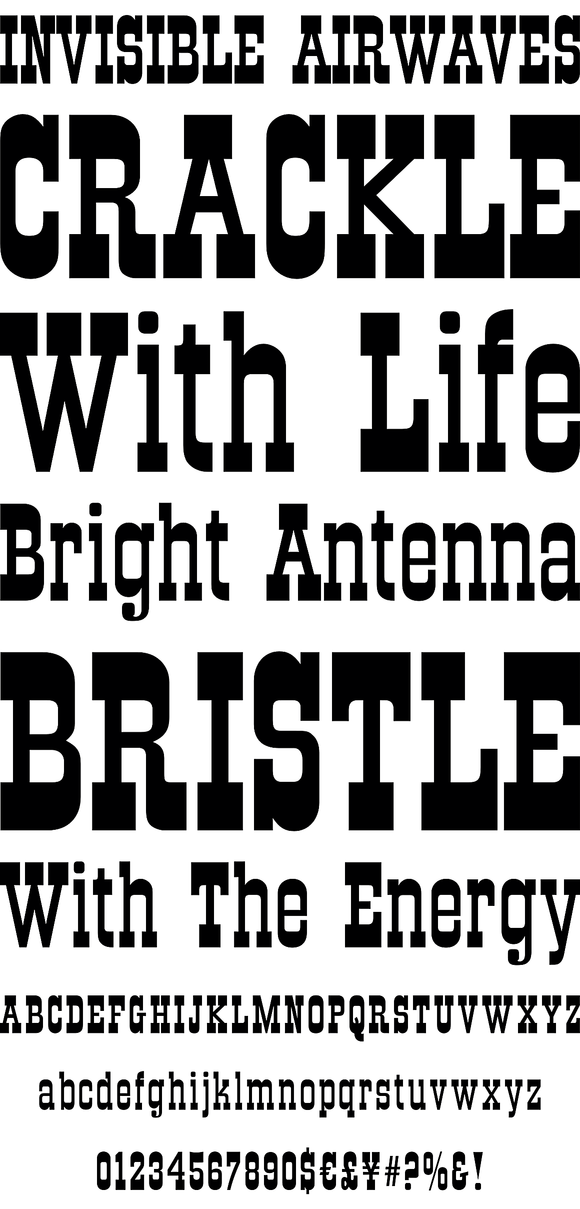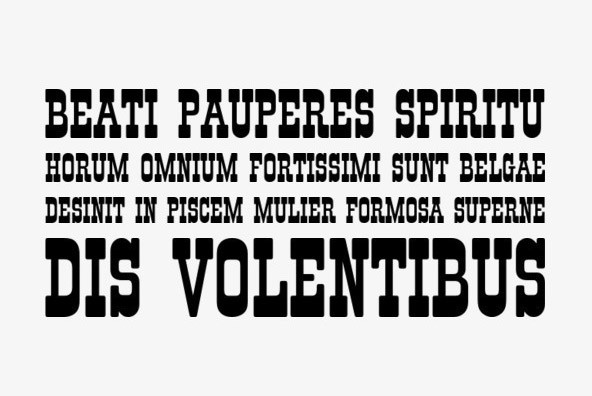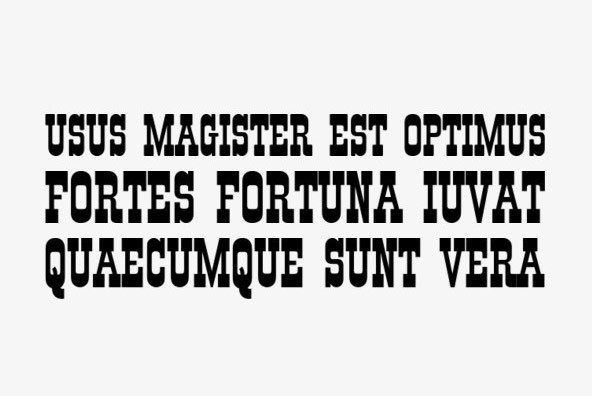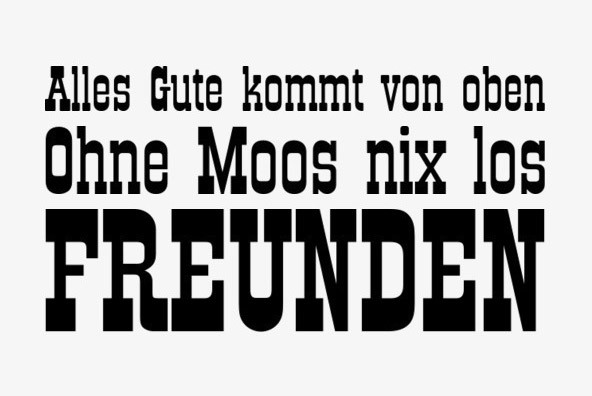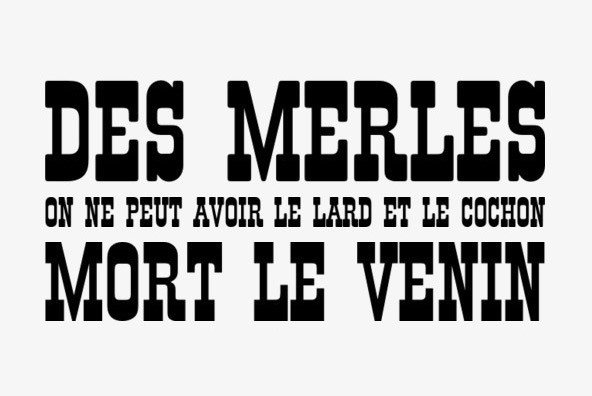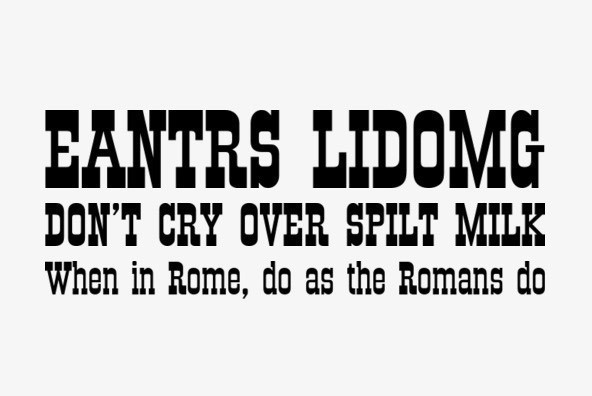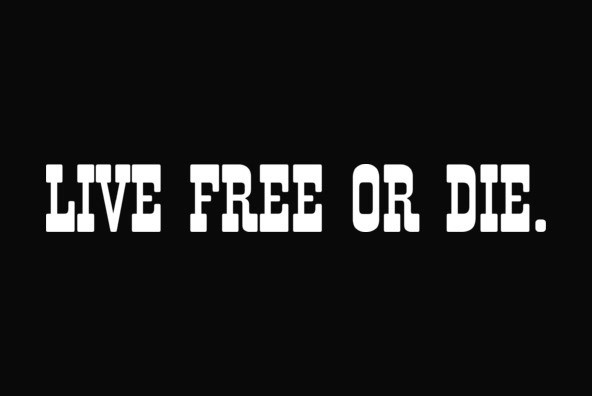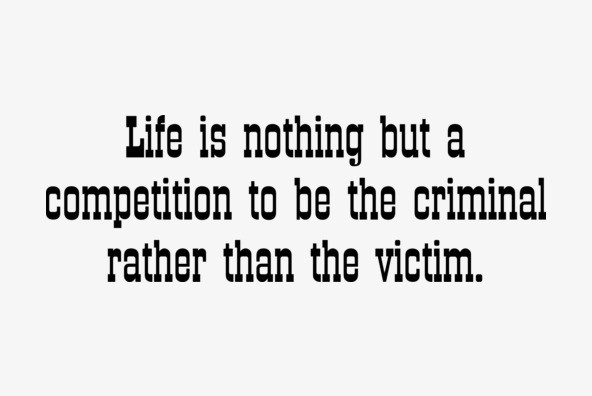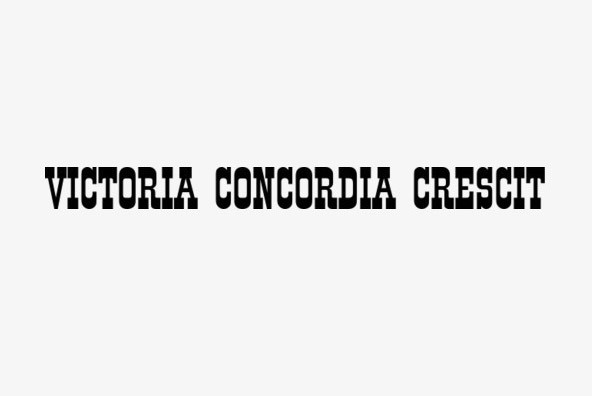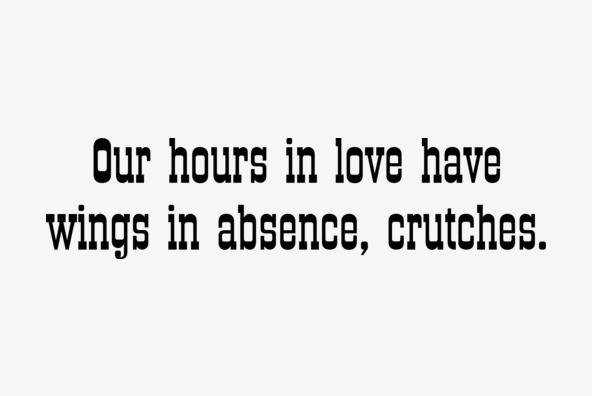
Old Towne No. 536
Originally released by Kingsley/ATF, Old Towne No. 536 is a decorative/western style serif font release by URW. Contains language support for West, East, Turkish, Baltic, and Romanian.